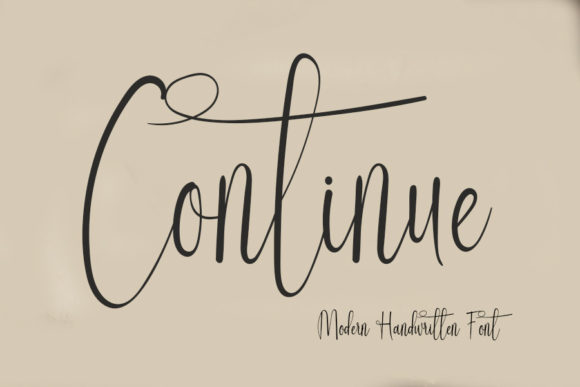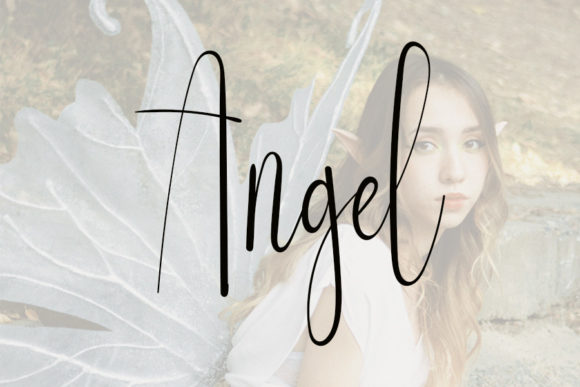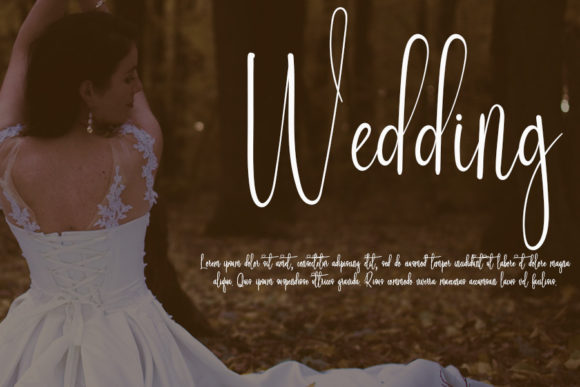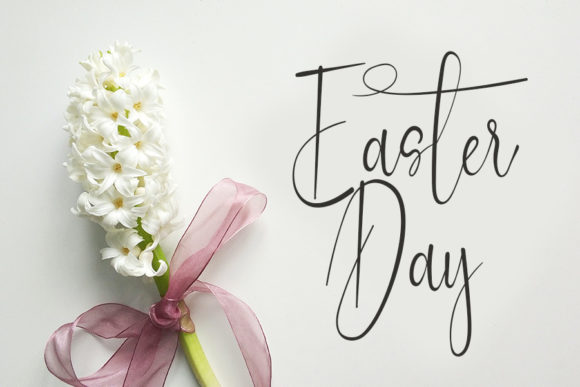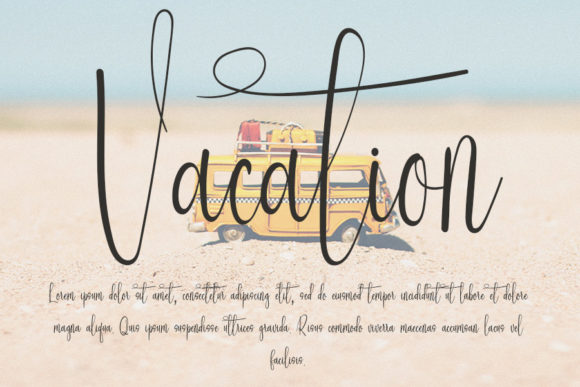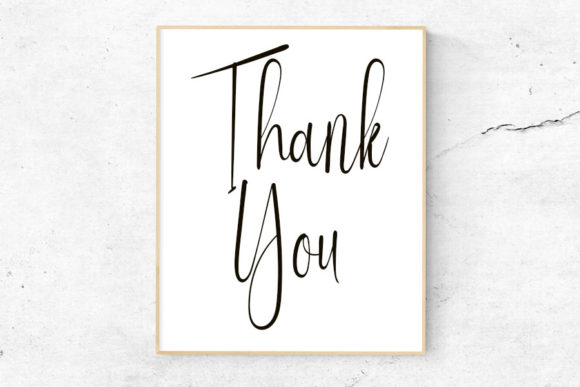
Continue Font
About Continue Font
Introducing Continue, a friendly handwritten font meticulously crafted to secure its place as a true favorite. This font strikes a balance by maintaining classy calligraphic influences while exuding a contemporary and fresh vibe, making it a versatile choice for a range of design projects.
The friendly and handwritten character of Continue adds a personal touch to your designs, creating an approachable and engaging aesthetic. Imagine this font enhancing greeting cards, infusing your messages with warmth and charm. Picture it becoming a standout element in your branding, introducing a touch of contemporary elegance to your logo and overall identity.
Continue goes a step further with its PUA encoding, granting easy access to a myriad of amazing glyphs and ligatures. This feature empowers you to customize your text effortlessly, adding unique and personalized elements to your designs.
With its harmonious blend of classic calligraphic elements and a modern twist, Continue is suitable for diverse applications. Whether you’re working on invitations, social media graphics, product packaging, or any creative project that demands a friendly and contemporary font, Continue adapts seamlessly to your vision.
Embrace Continue as the go-to font when you want to infuse your designs with a friendly and modern vibe. Its timeless appeal and PUA encoding make it a cherished companion, transforming every project into a delightful showcase of handwritten elegance. Let Continue be the friendly touch that adds a special charm to your creative endeavors.